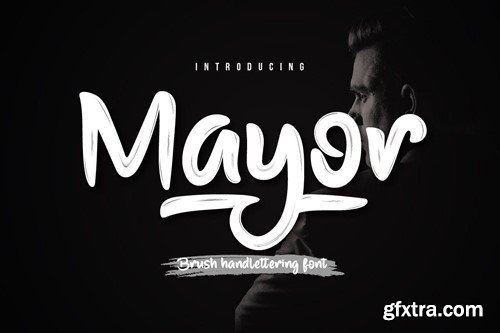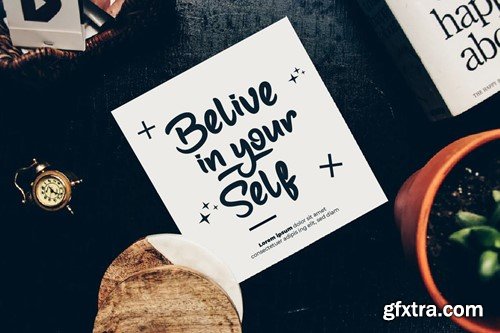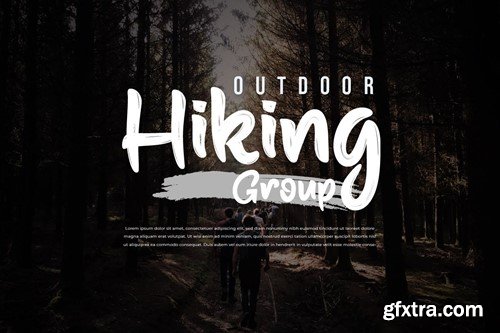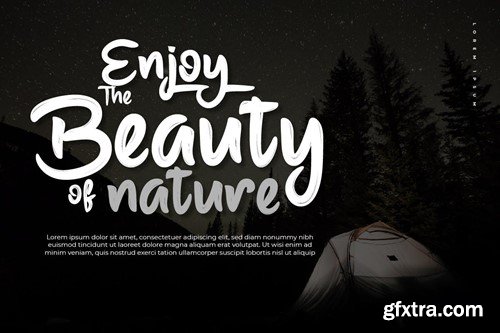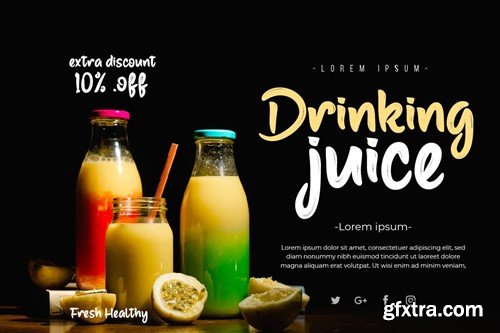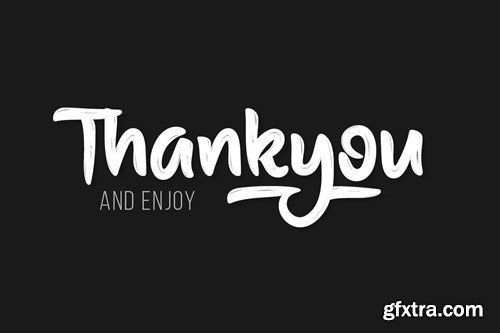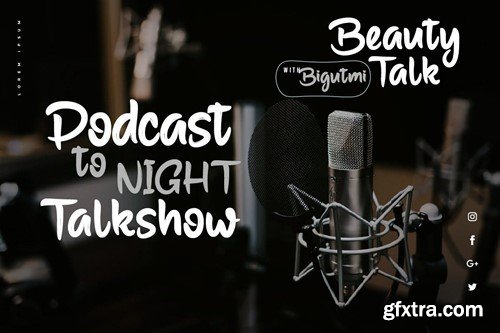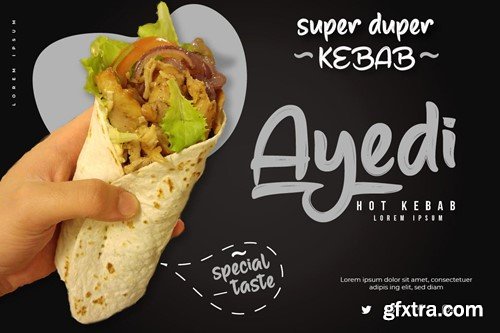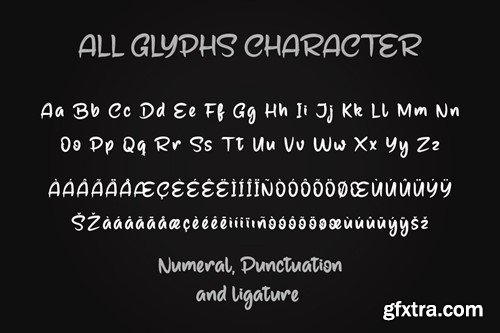
市长 - 刷手写字体 373TEEV
Mayor - Brush Handwritten Font 373TEEV
Mayor - Brush Handwritten Font
Make a bold statement with Mayor - Brush Handwritten Font, the font that commands attention and respect! With its strong strokes and authoritative design, Mayor brings a sense of gravitas to every project. Whether you're designing official documents, crafting corporate branding, or creating impactful signage, Mayor is your go-to font for making a statement. Get ready to stand tall and lead the way with Mayor - the font that's bold, confident, and ready to take charge!